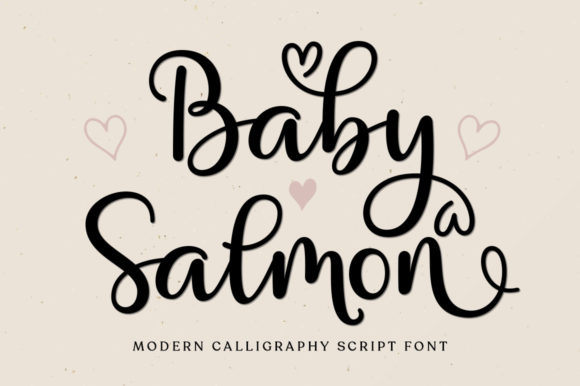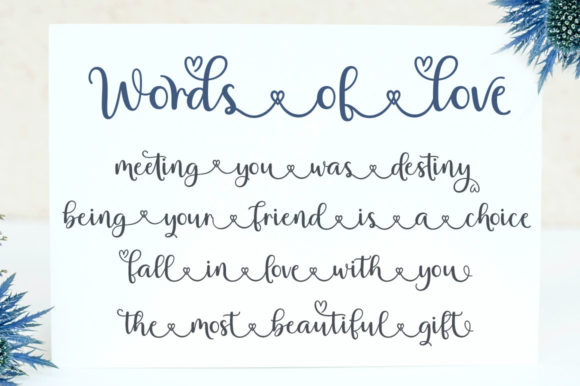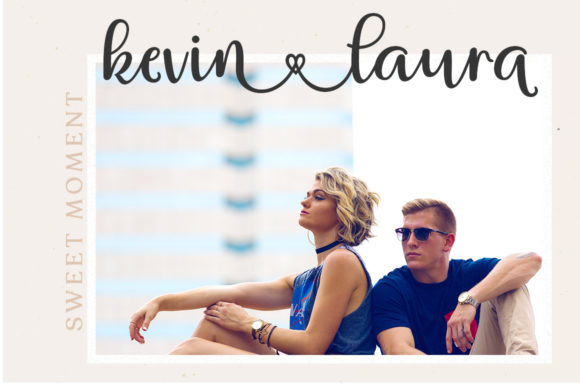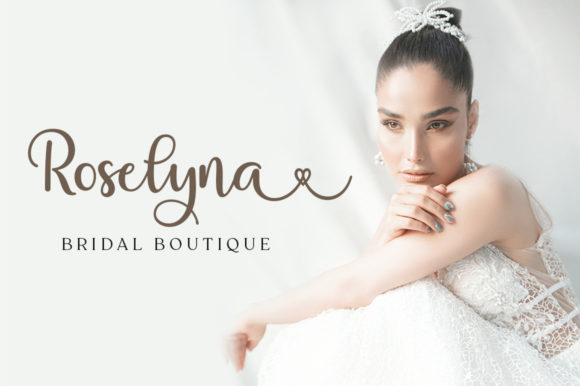
Baby Salmon Script Font
About the Baby Salmon Script Font
Experience the unique personality of Baby Salmon Script Font, a font designed for impact. Baby Salmon Script is a romantic and sweet calligraphy typeface with characters that dance along the baseline. It will add a luxury spark to any design project that you wish to create! This font is PUA encoded which means you can access all of the amazing glyphs and ligatures with ease!
Its flowing, delicate forms make Baby Salmon Script ideal for projects requiring a touch of elegance and romance, such as wedding invitations, greeting cards, or luxury branding materials. It excels in short headlines, logos, and short quotes where its graceful curves can shine. However, its low x-height and decorative nature make it unsuitable for body text or lengthy paragraphs; readability would suffer significantly.
Pairing Baby Salmon Script with a clean sans-serif like Montserrat or a classic serif like Garamond will create a balanced and sophisticated aesthetic. For a more playful feel, consider pairing it with a geometric sans-serif such as Futura or a more modern script font with a bolder stroke.
The font projects a feeling of gentle sophistication and feminine charm, making it best suited to brands and projects communicating luxury, intimacy, or handcrafted quality. Avoid using it in contexts requiring strong readability or a modern, minimalist aesthetic.
Baby Salmon Script Font Usage Examples
Baby Salmon Script Font Example